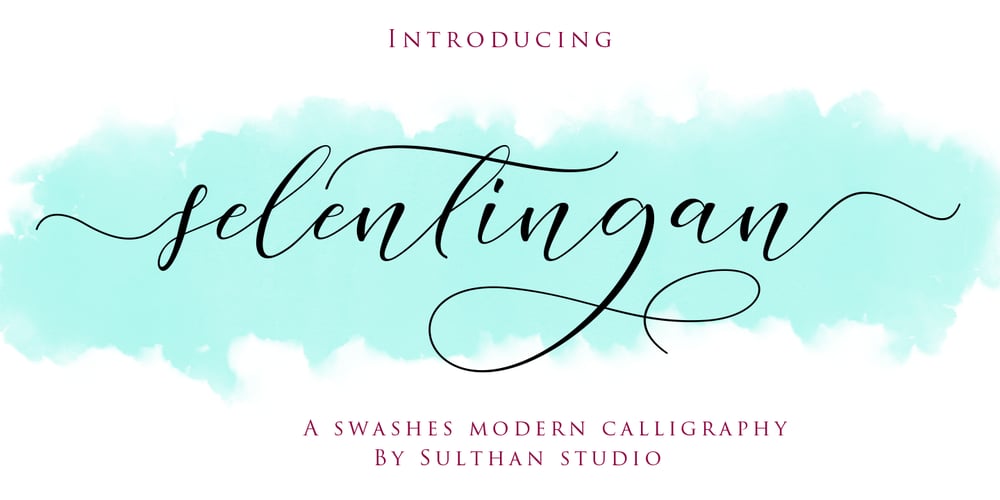
Selentingan Font Family was designed by Nasrullah and published by Sulthan Studio. Selentingan contains 1 styles and family package options. Introducing Selentingan Script! This font is specially created for those of you who need a touch of elegance to design your next projects with perfect and amazing results. A very beautiful and interesting script with a perfect line for use for various purposes like titles, signatures, logos, correspondence, wedding invitations, letterheads, nameplate, labels, bulletins, posters, badges, Branding, Greeting Cards, etc. Selentingan Script is built with OpenType features and includes start and end. It comes with OpenType Stylistic set, Initials, swashes, ligatures and everything to add a touch to your design. Also supports other languages.